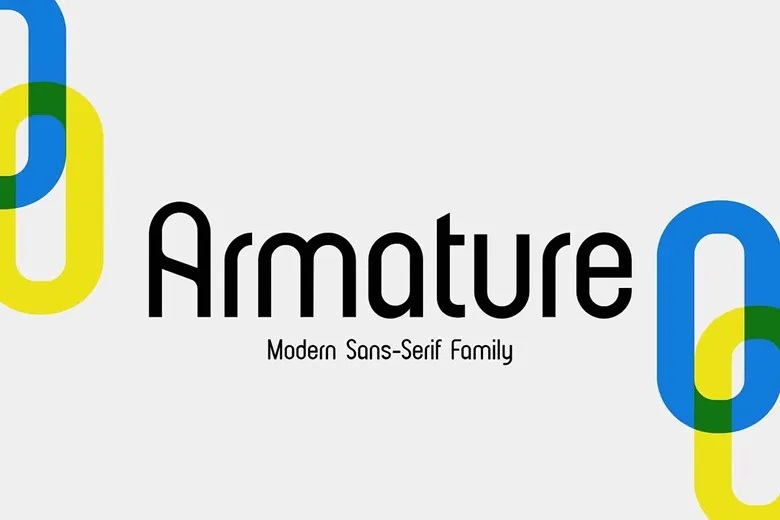
Armature Font Family
Armature is a new contemporary sans serif typeface that has been specifically developed with small screen usage in mind. This font is suitable for numerous designs and can be applied to logos, weddings, typography quotes, magazines or books covers, web headers, branding, and so on.
Armature Sans Serif Font Family